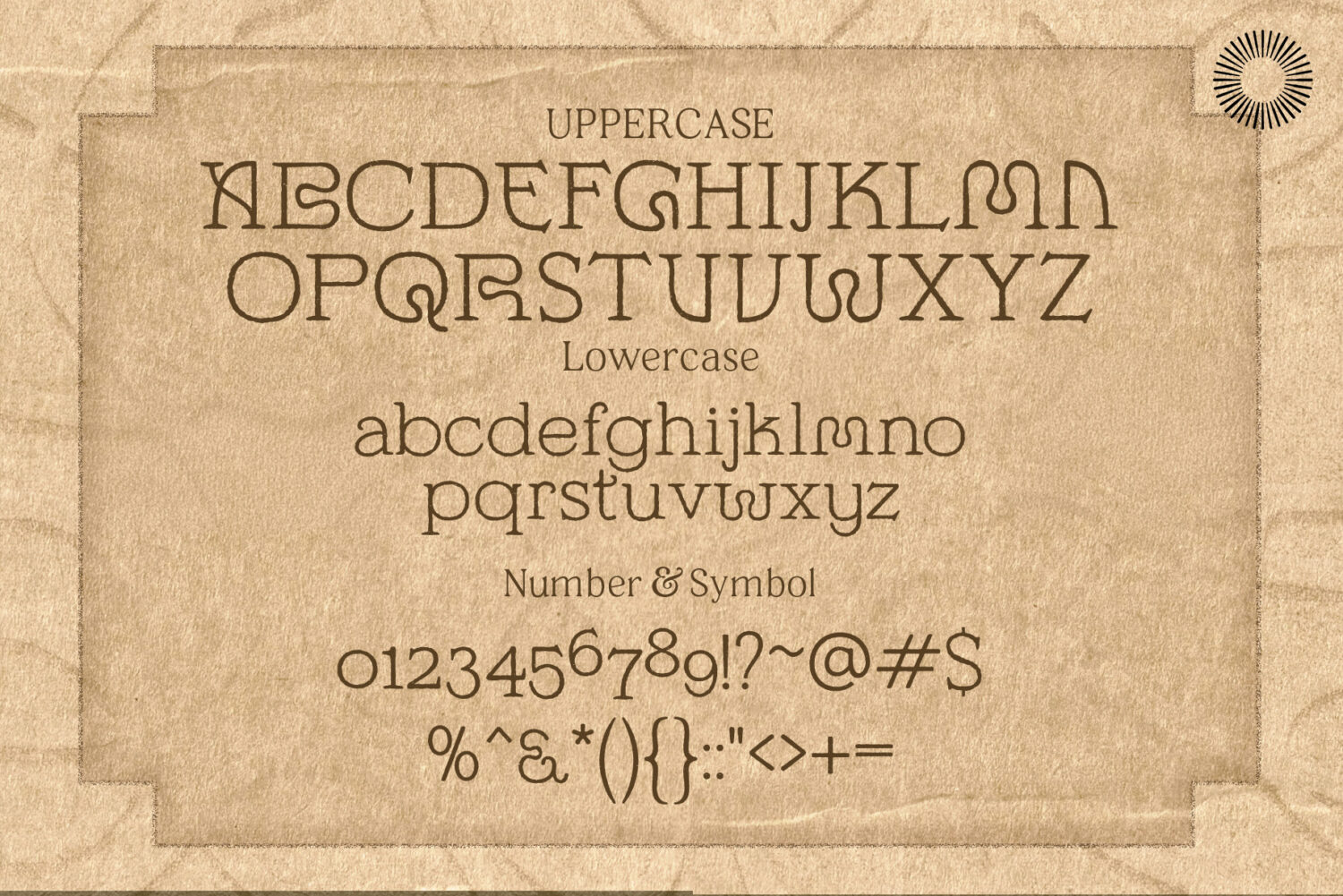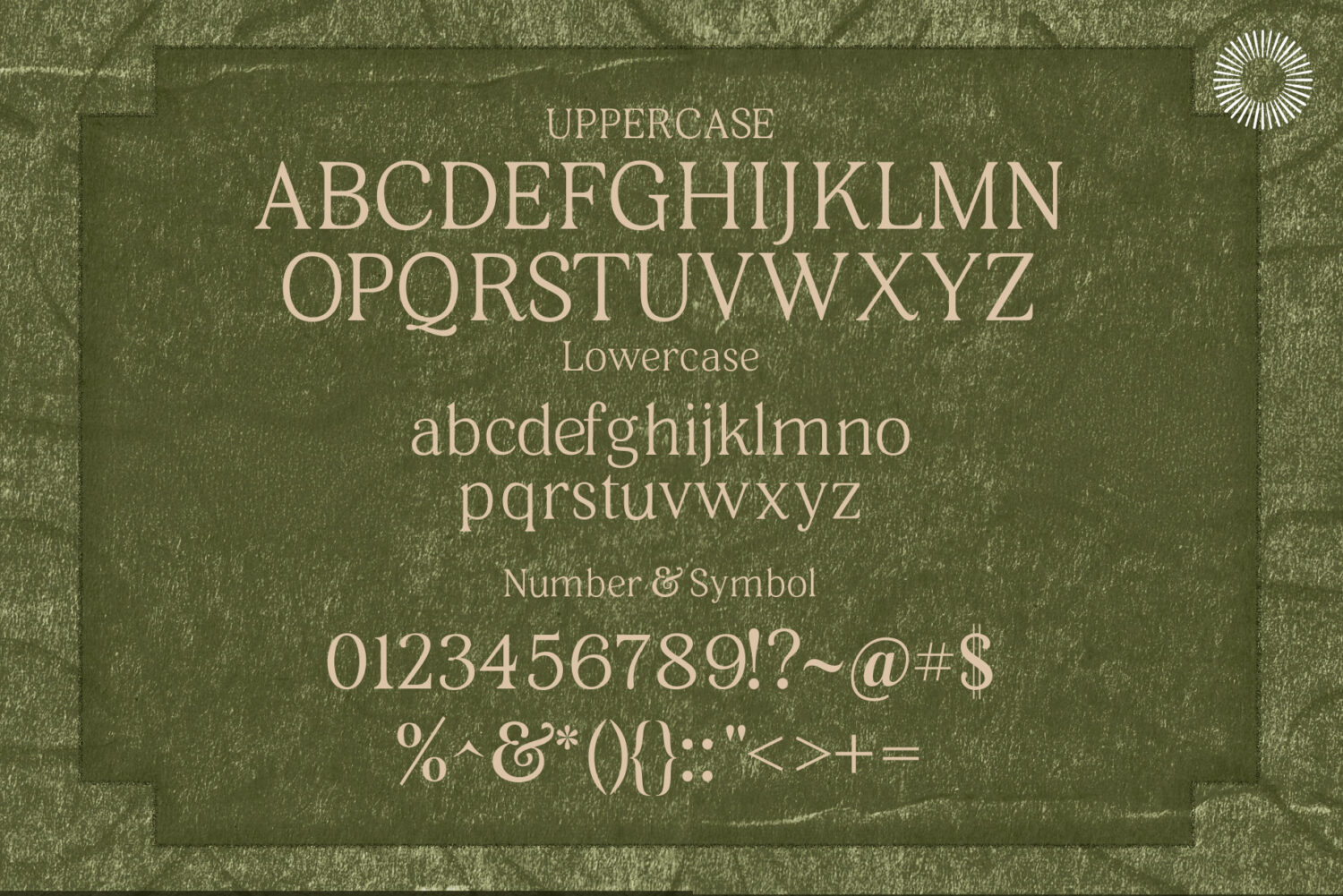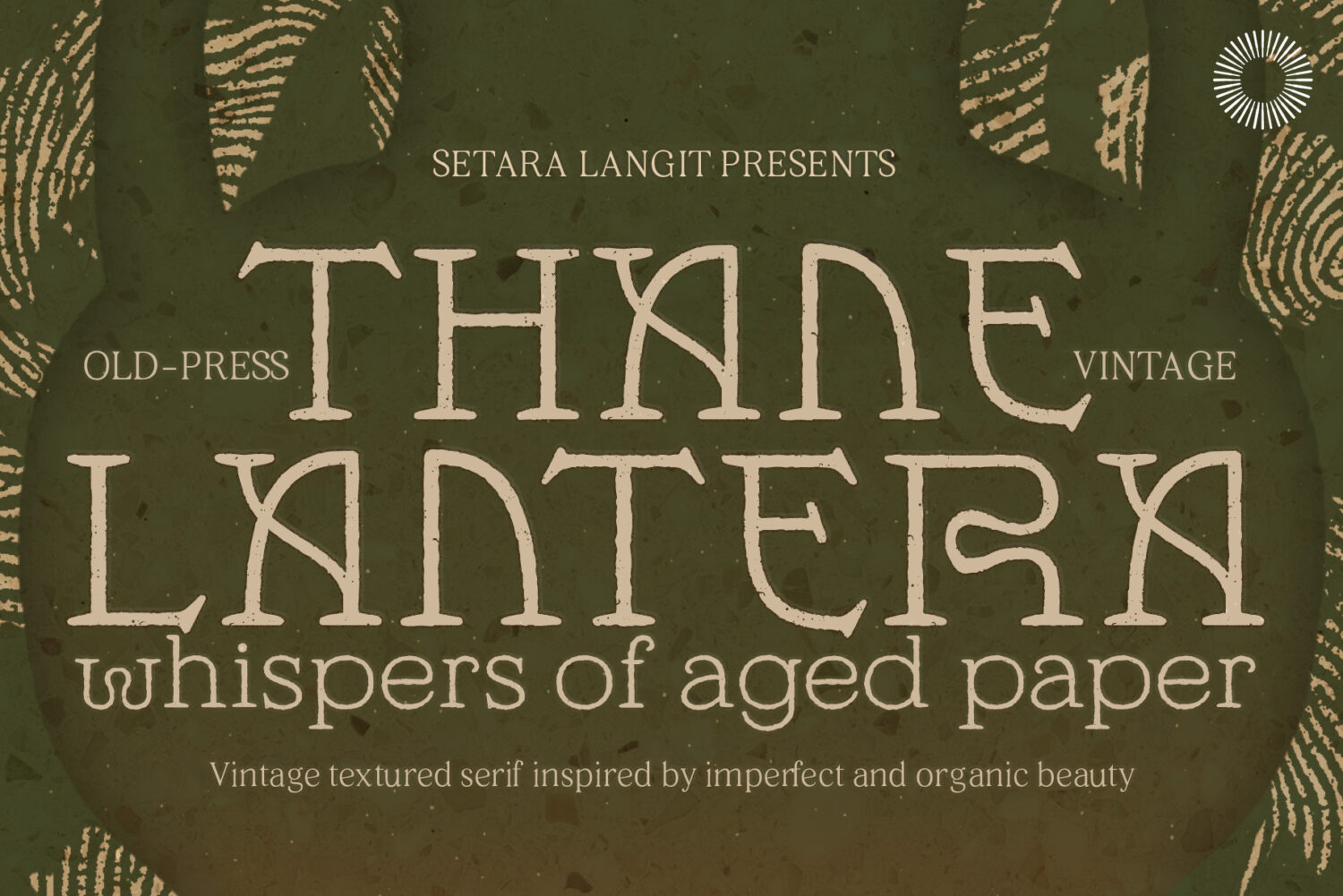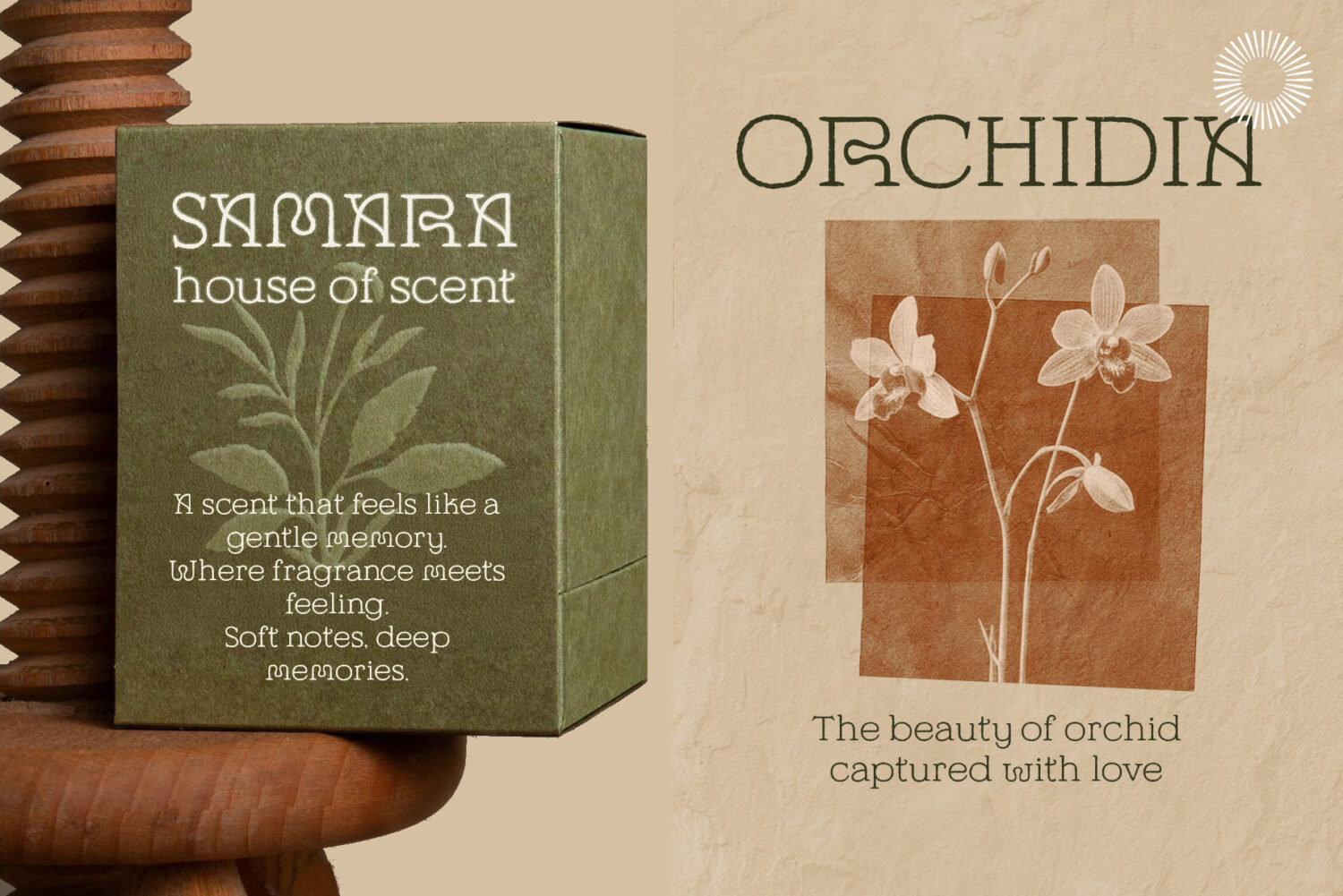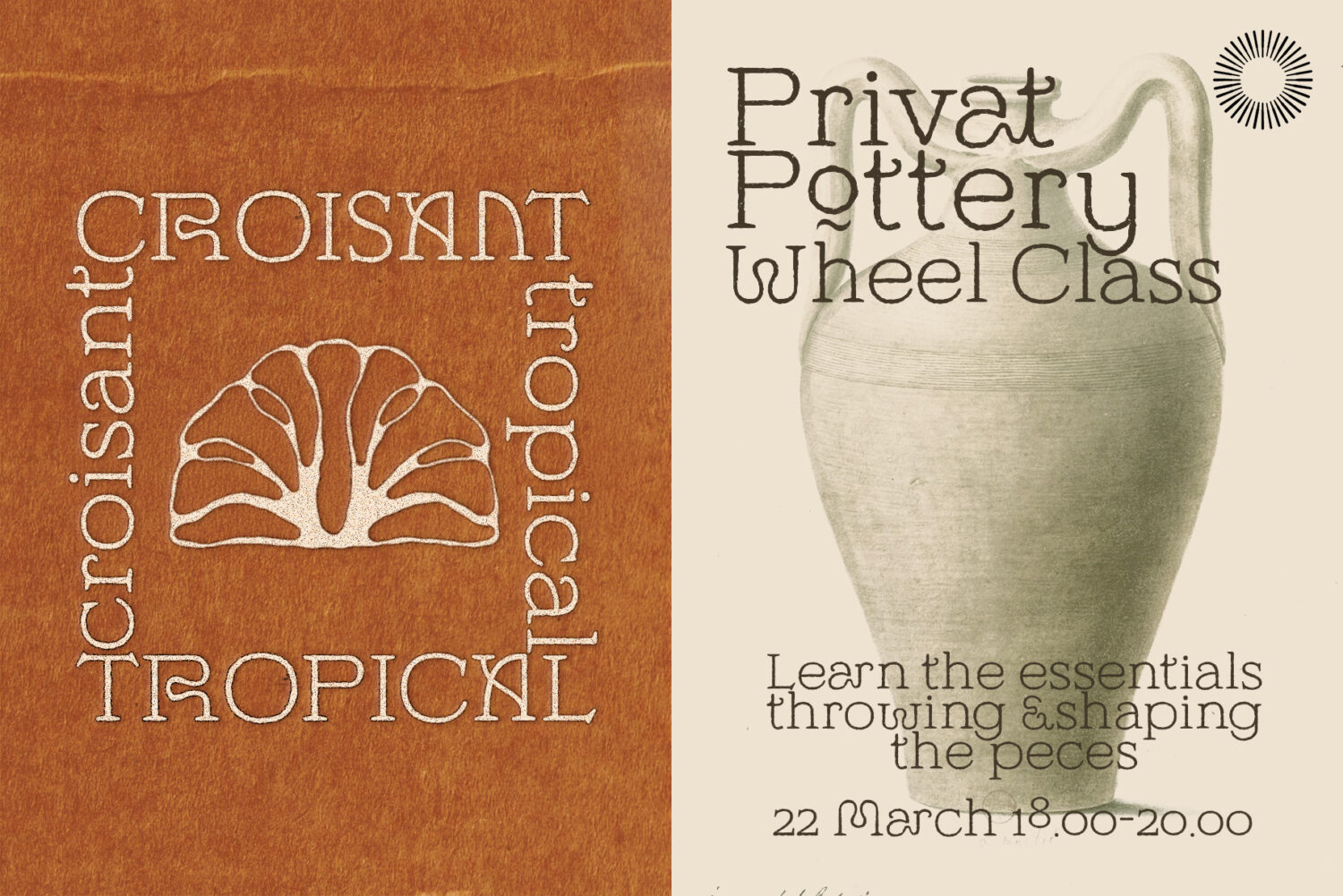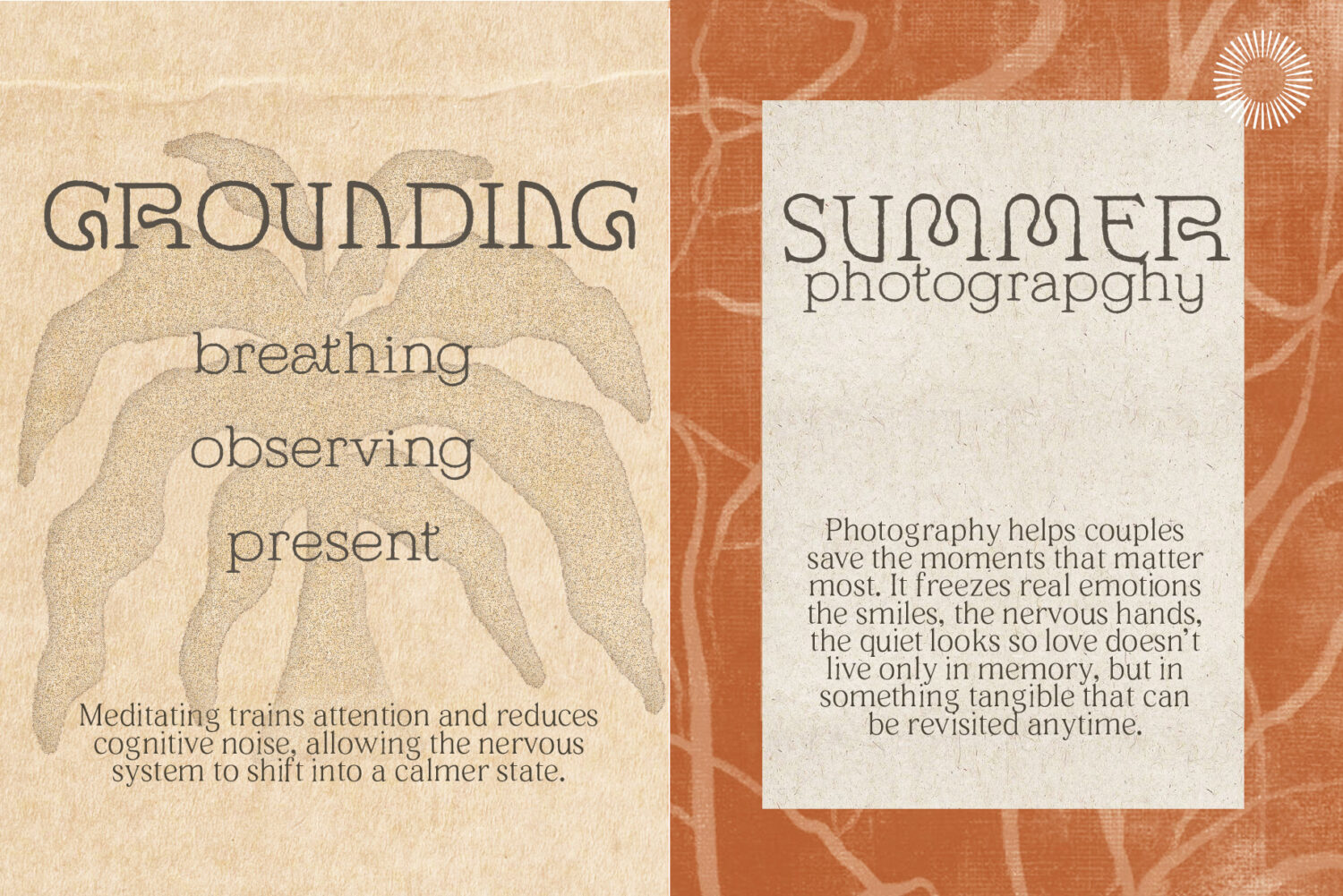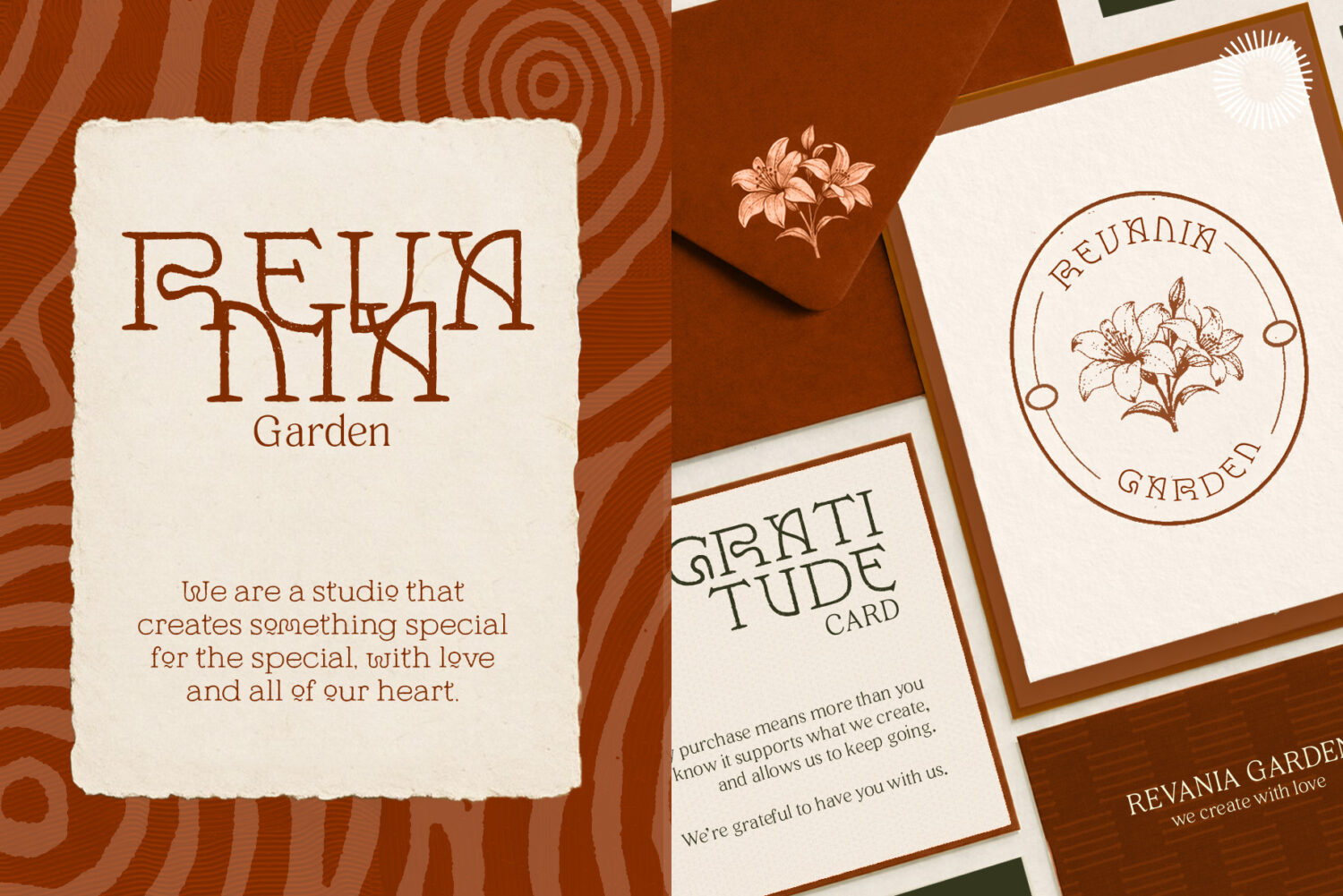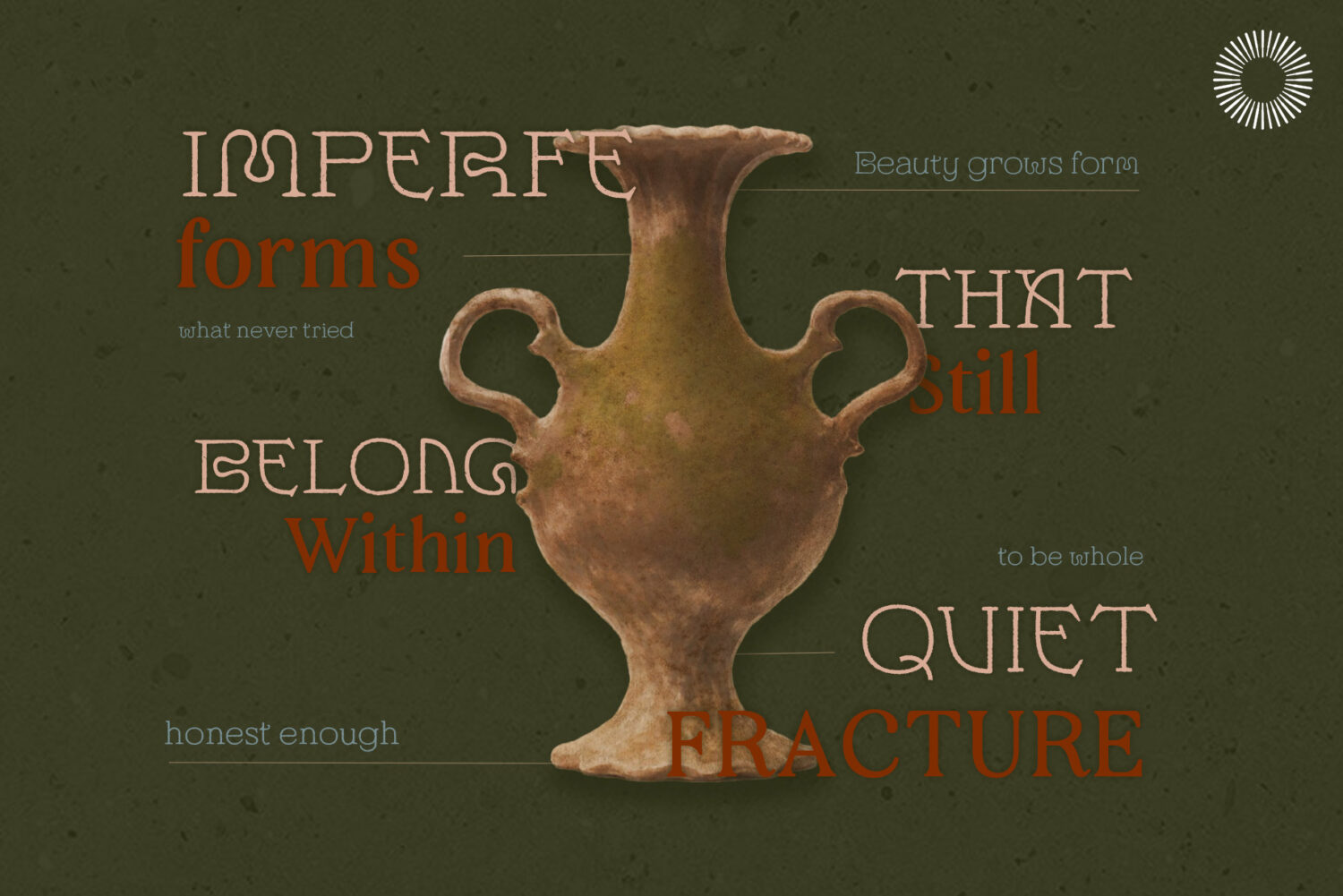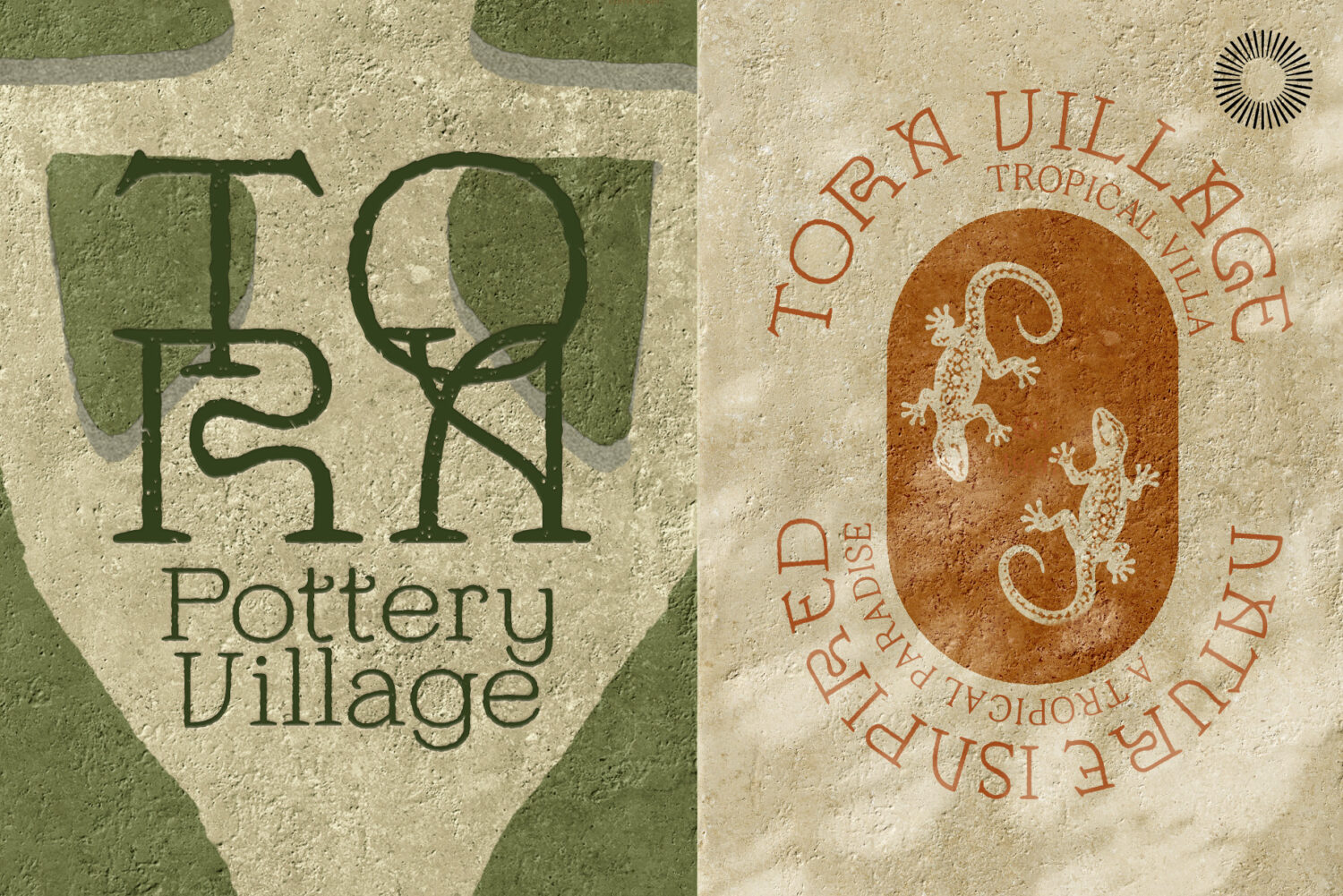
Thane Lantera - Texture
Thane Lantera - Basic Serif
Thane Lantera – Old Press Print Font
Thane Lantera is a vintage serif display font inspired by old press prints, aged paper, and the quiet beauty of handmade lettering. It blends classic serif structures with organic, slightly irregular strokes, creating a warm and nostalgic feel without losing readability. The letterforms feel carved rather than drawn giving the impression of traditional printing, folklore books, and antique signage. Subtle imperfections in each glyph add character and texture, making the font feel human, crafted, and timeless. Thane Lantera works beautifully for designs that need a poetic, rustic, or editorial atmosphere. It brings a sense of history, warmth, and storytelling into modern layouts.